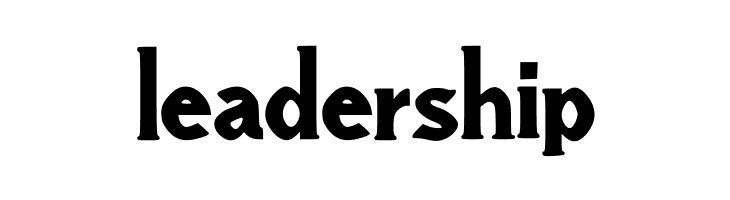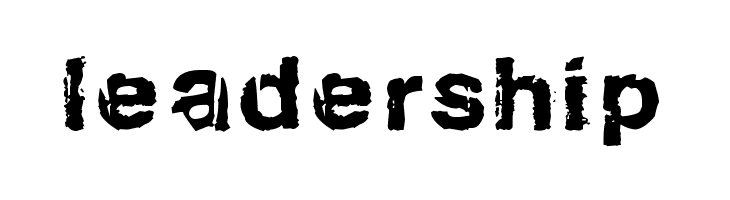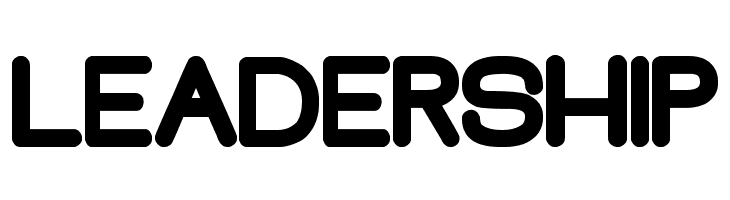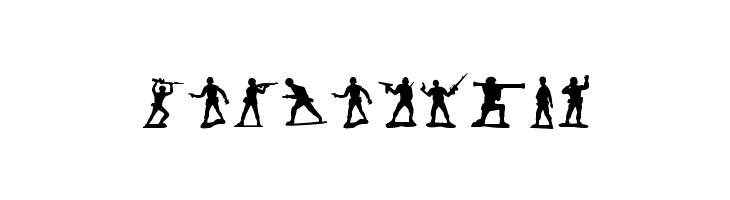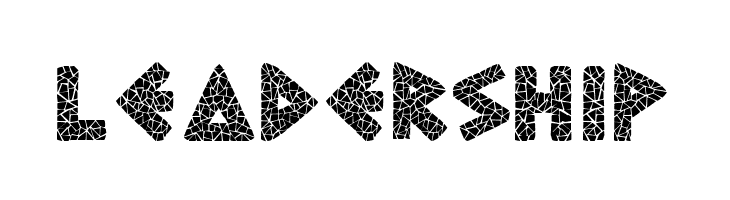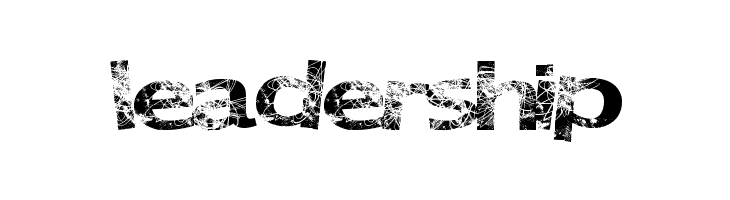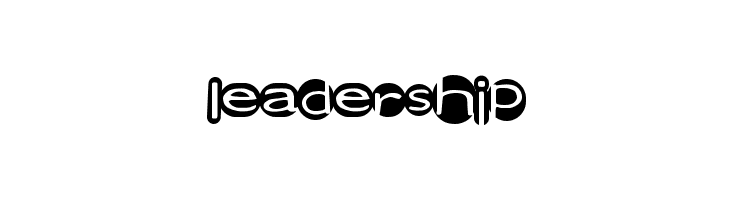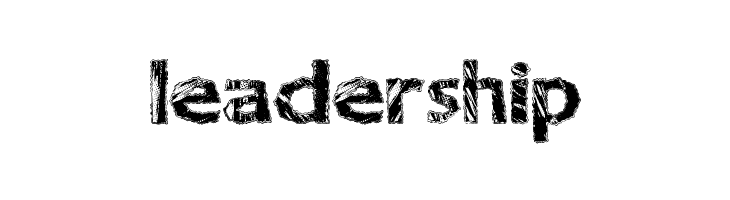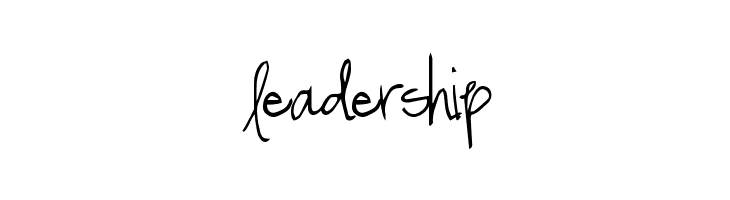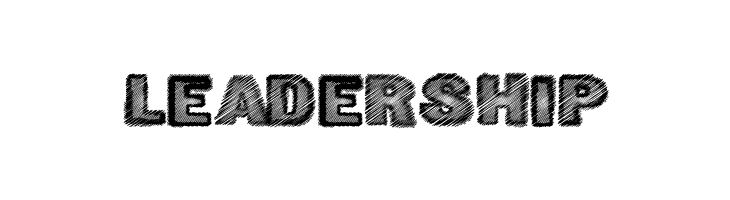
A bold, textured font with a 1990s grunge aesthetic.
A bold, distressed font with a textured, cracked appearance.
A bold, decorative font with a three-dimensional, shadowed effect.
A bold, dynamic script font with expressive, flowing letterforms.
A bold, decorative font with a retro halftone pattern, perfect for eye-catching designs.
A bold, textured font with a crosshatched pattern for dynamic visual impact.
A bold, dynamic font with playful, energetic characters.
A playful, handwritten font with fluid, connected strokes.
A bold, playful font with rounded, dynamic characters.
An ornate and decorative font with elegant swirls and flourishes.
A bold, brush-style font with dynamic and artistic strokes.
A bold, mosaic-patterned font with a geometric and decorative style.
A bold, double-outline font inspired by traditional Greek lettering, ideal for decorative and impactful designs.
A playful, modern font with rounded, slightly condensed characters and unique curves.
A hand-drawn, organic font with a playful and artistic style.
A bold, artistic font with sharp angles and a modern flair.
A tall, narrow serif font with high contrast and elegant style.
An elegant, calligraphic script inspired by fantasy languages.
A decorative script with flowing, intricate lines inspired by Tengwar.
An ornate, historical script with intricate flourishes and a calligraphic style.
An ornate and decorative script font with a classic German style.
A bold, high-contrast blackletter font with intricate, ornate letterforms.
A bold, dynamic serif font with a modern twist.
A grunge, hand-drawn font with dynamic, uneven strokes and a distressed appearance.